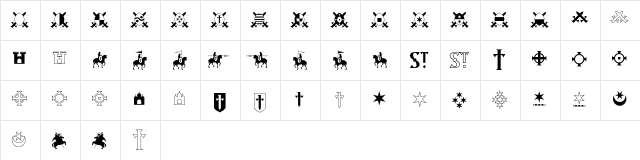
Archangel Icon
| Style | Icon |
Design Context for Archangel Typeface
Archangel is a composed and adaptable typeface that performs quietly and consistently across a wide range of design contexts.